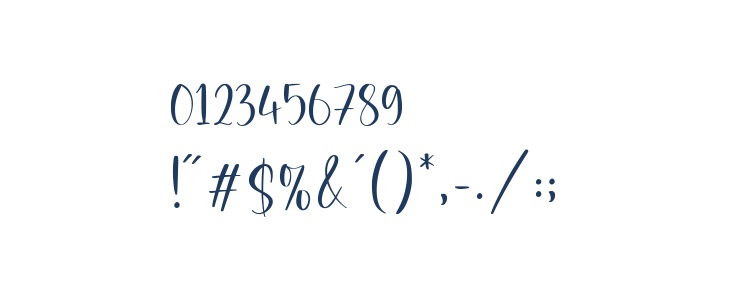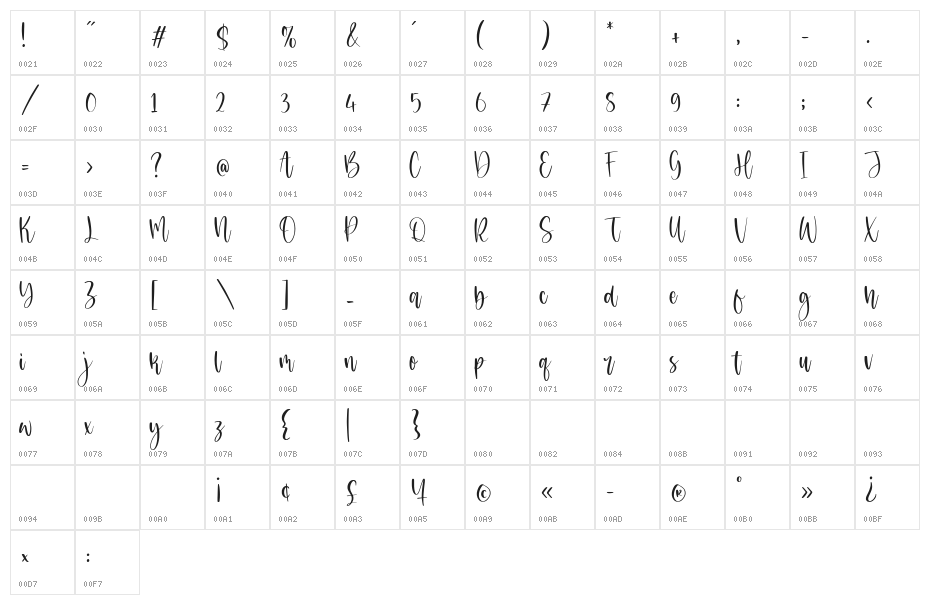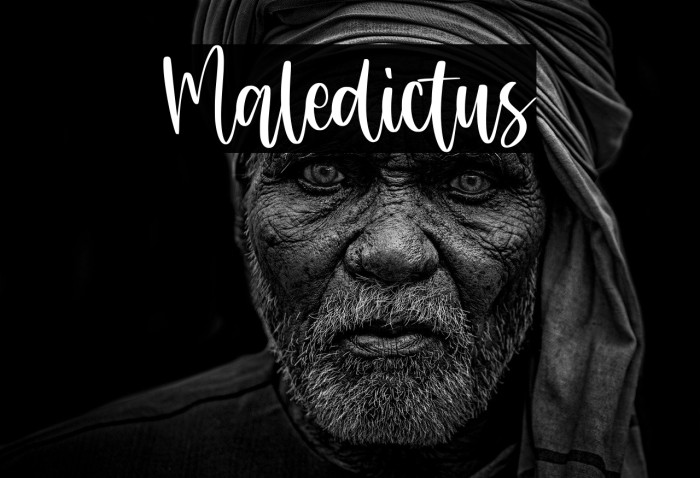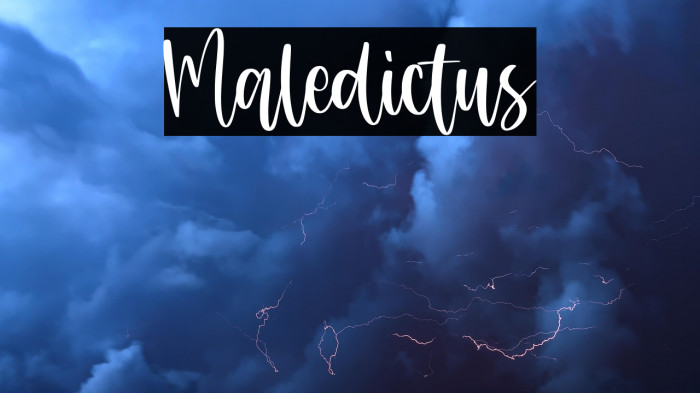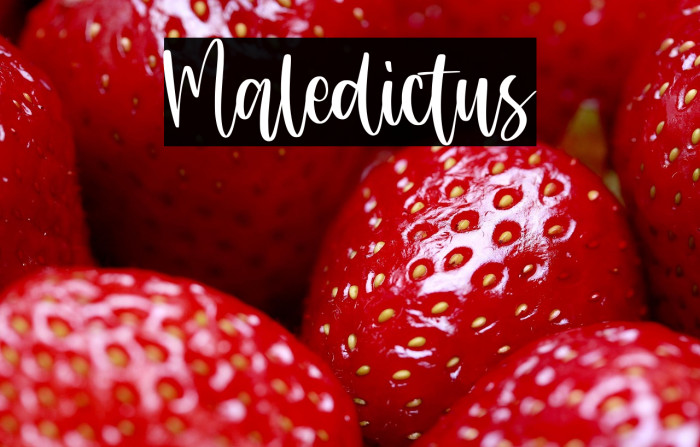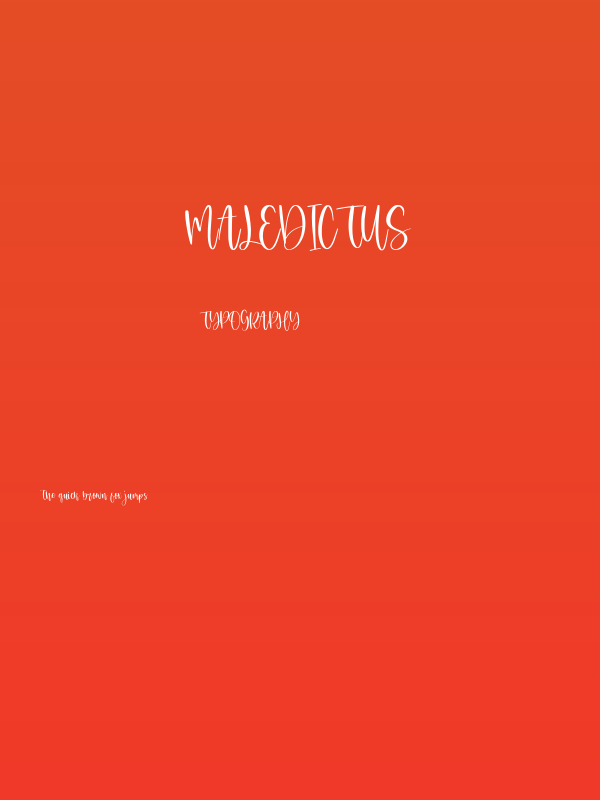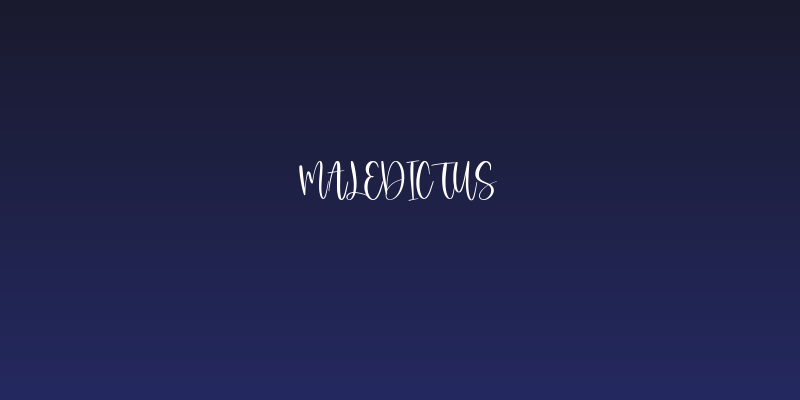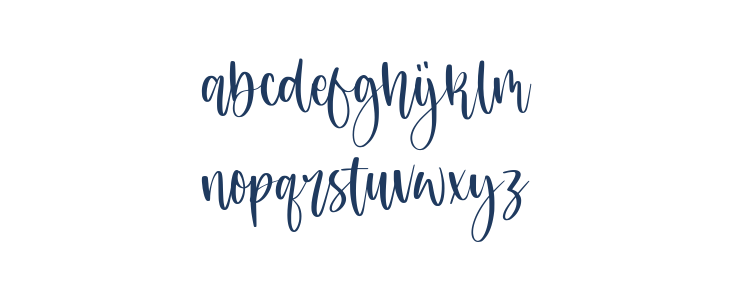
Maledictus Font
Maledictus Description
This font features an elegant and flowing script style, characterized by its smooth, cursive letters that mimic the fluidity of handwriting. The uppercase letters are tall and graceful, with sweeping ascenders and descenders that add a sense of movement and sophistication. The lowercase letters maintain a consistent style, with rounded forms and connected strokes that enhance the handwritten appearance. The numerals and special characters are designed to match the overall aesthetic, ensuring a cohesive look across all text. This font is ideal for projects that require a personal touch, such as invitations, greeting cards, or branding materials.
| Overall Style | Elegant, Handwritten |
| Use Case | Headlines, Invitations, Branding |
| Proposed Projects | Ideal for wedding invitations, greeting cards, branding, and personal stationery. |